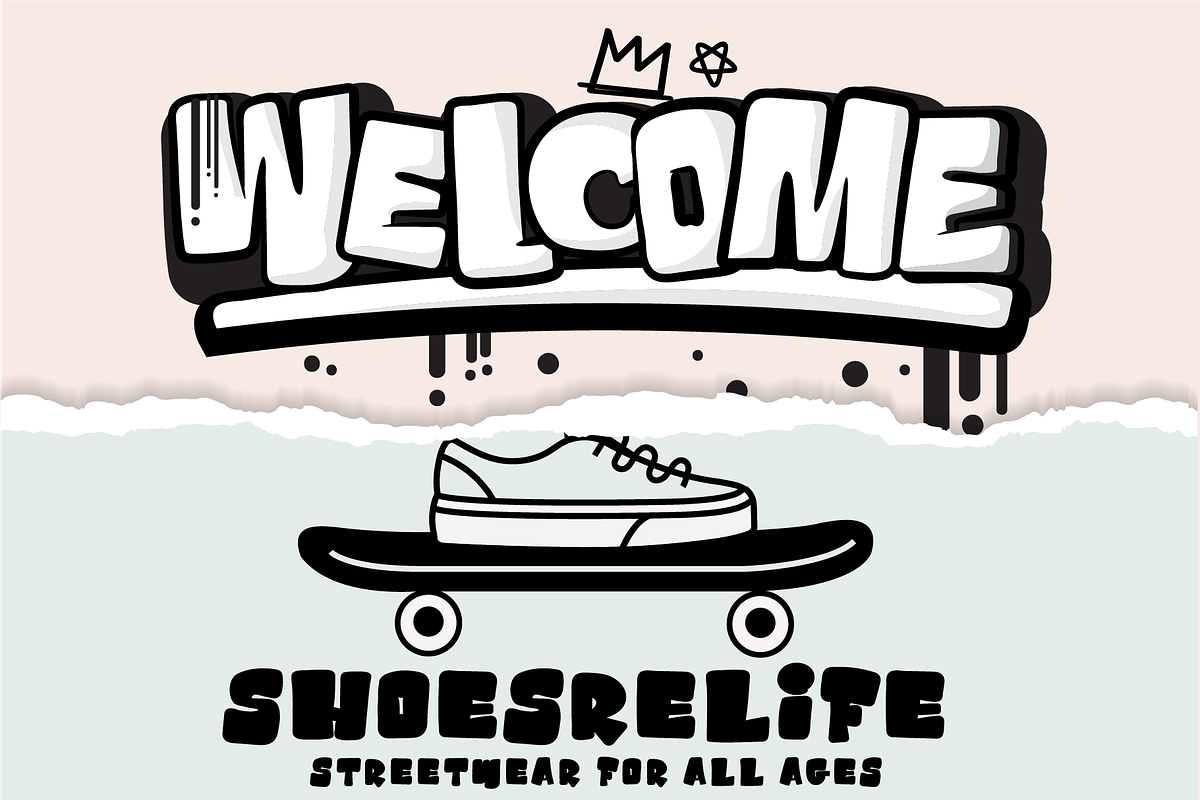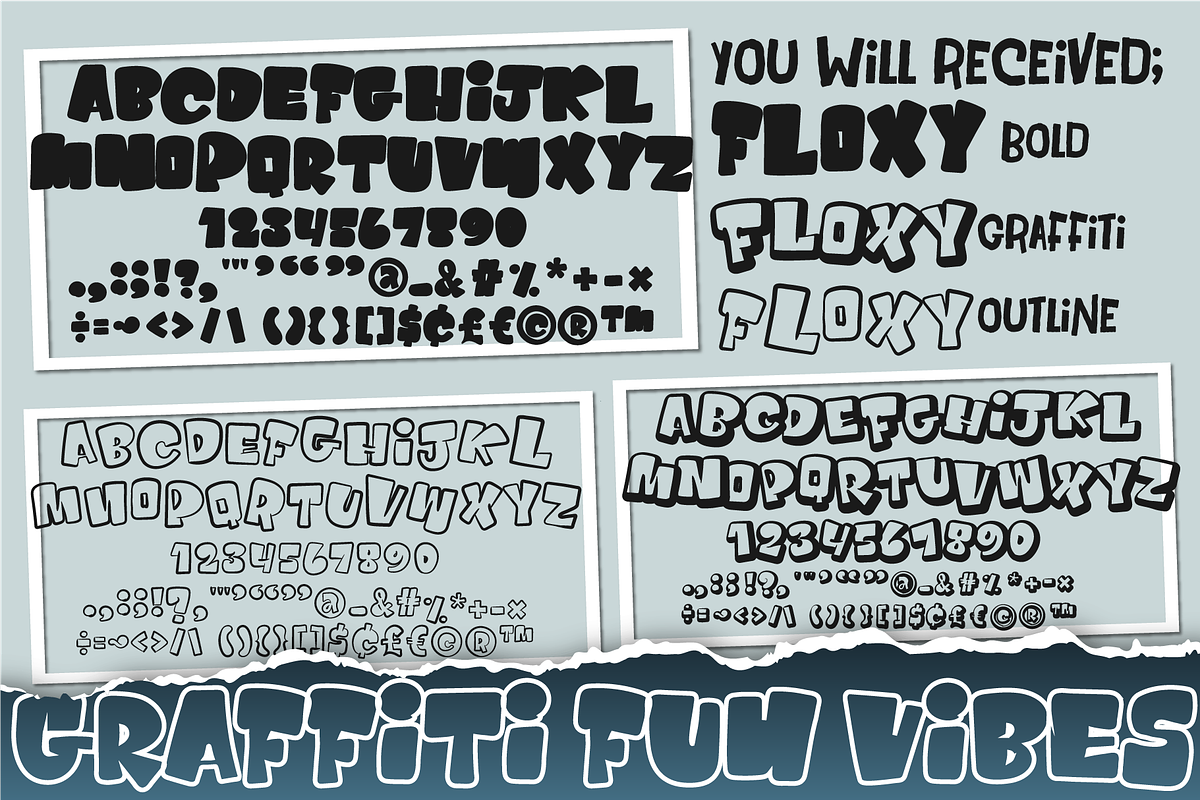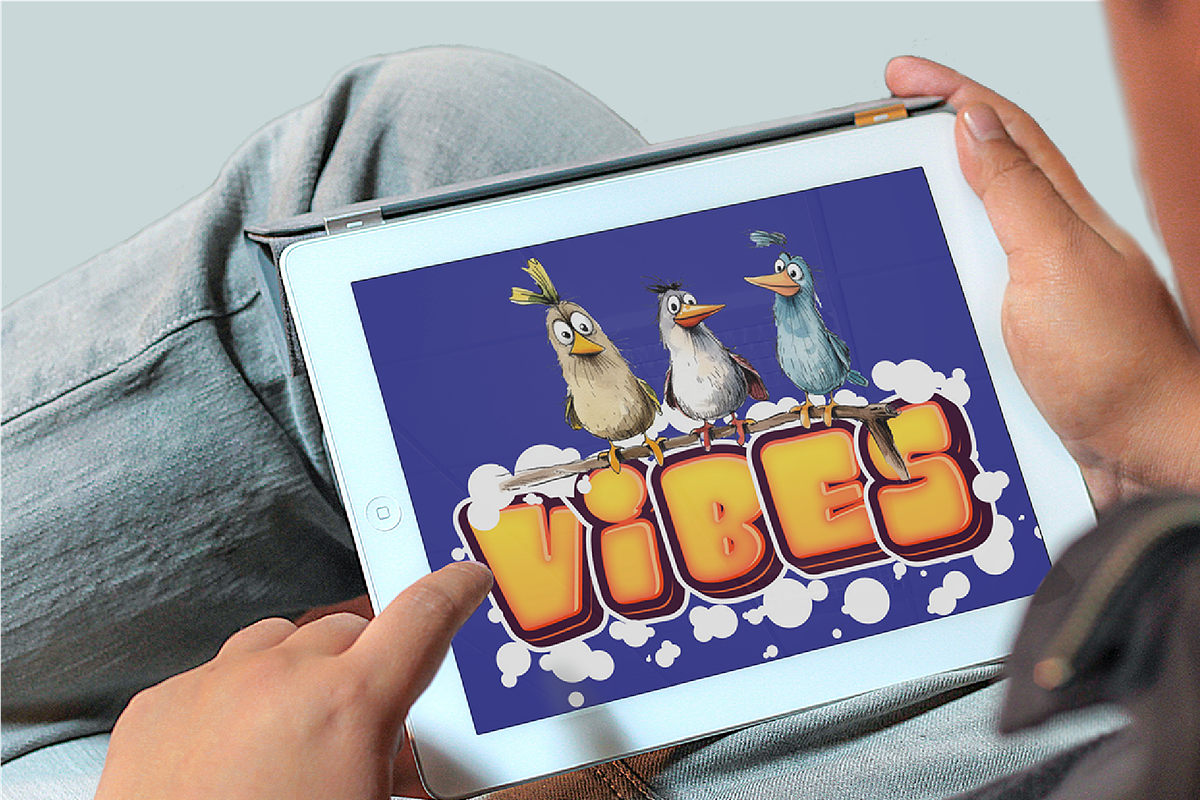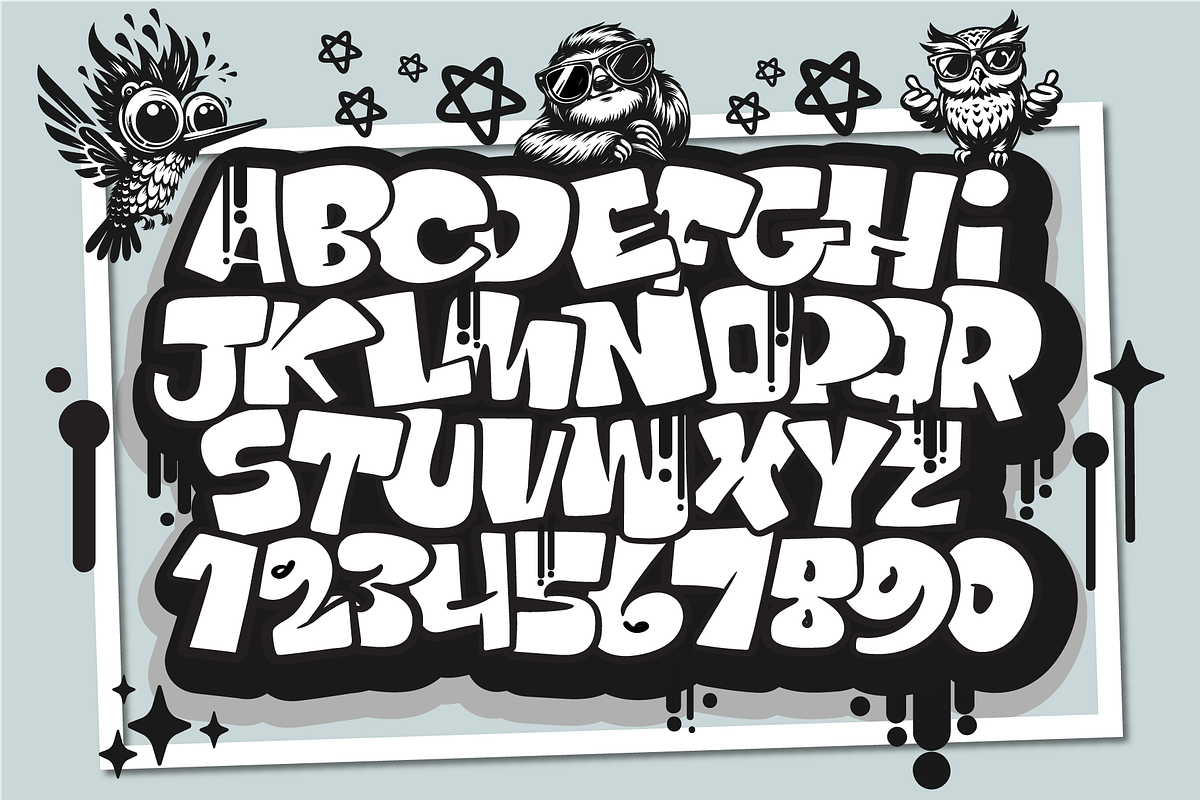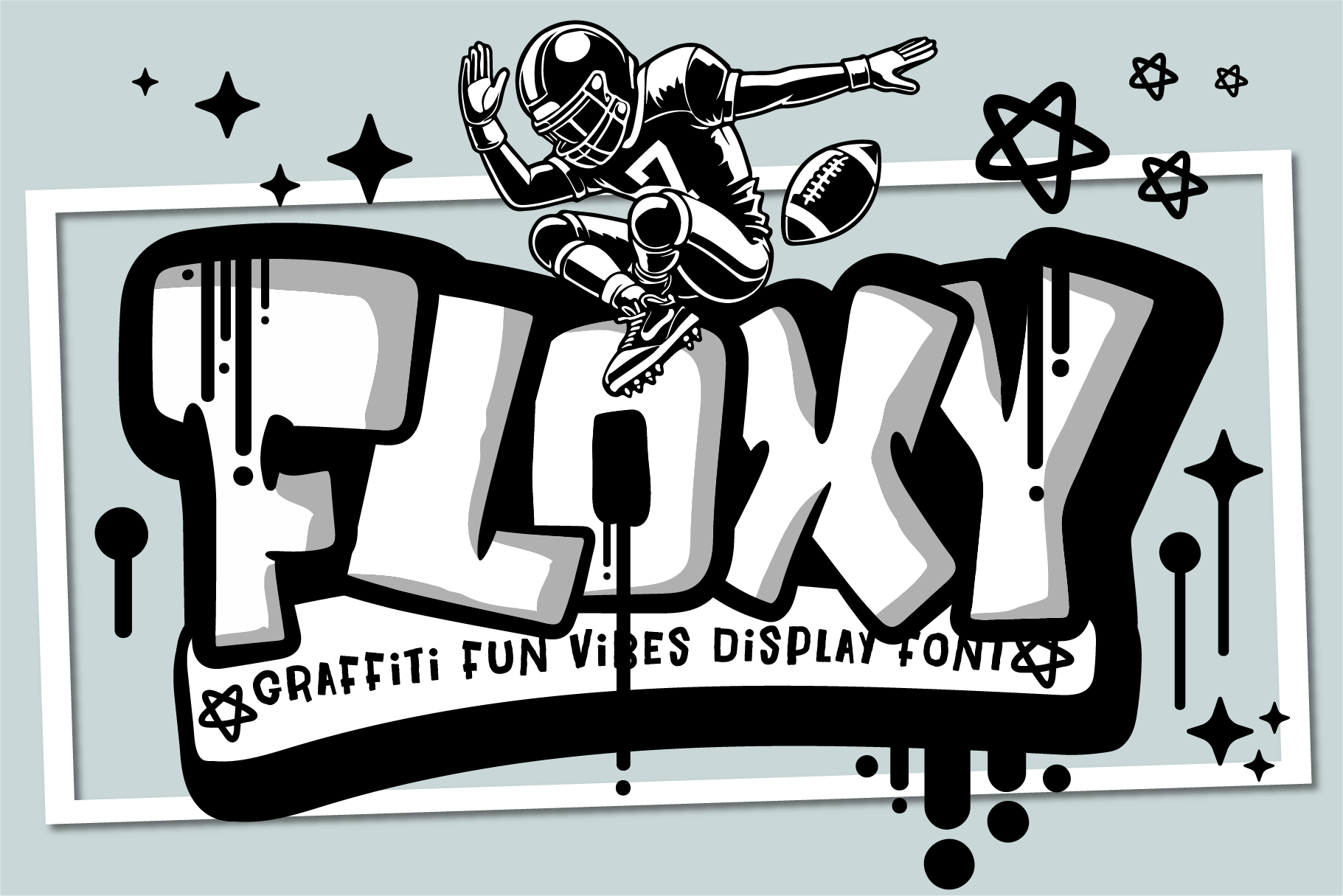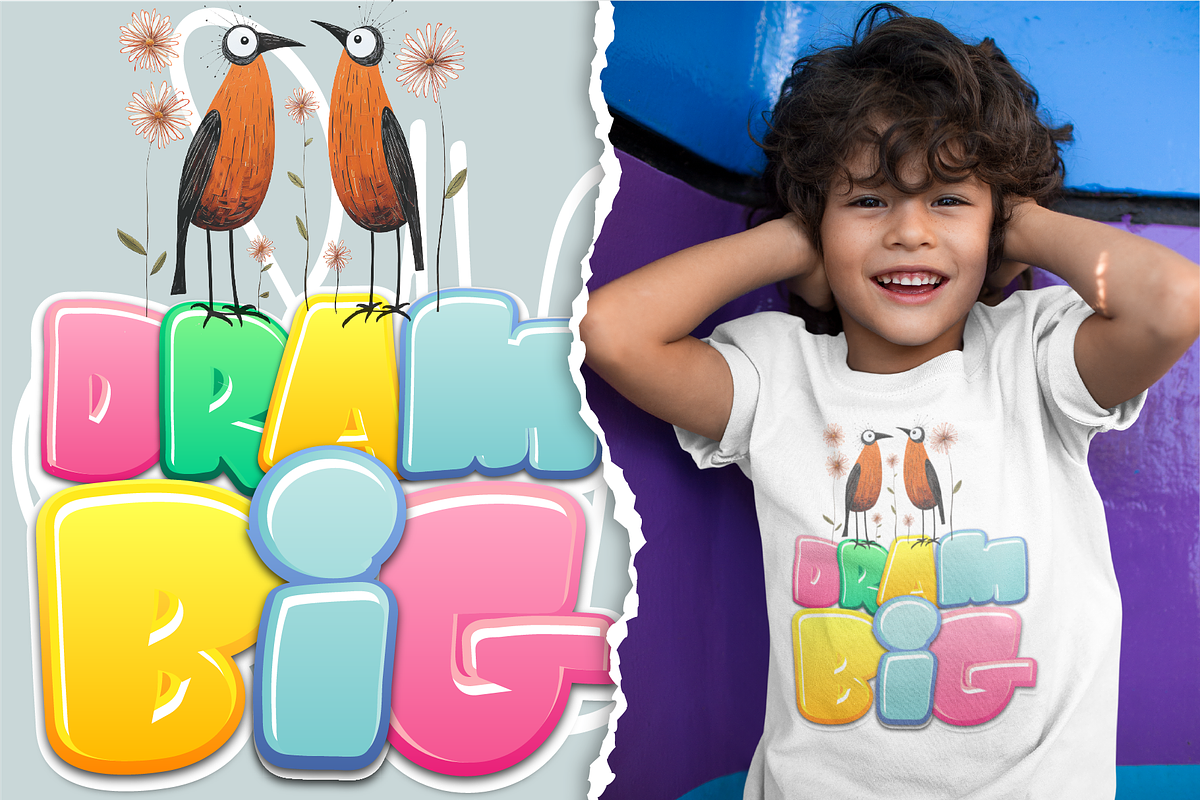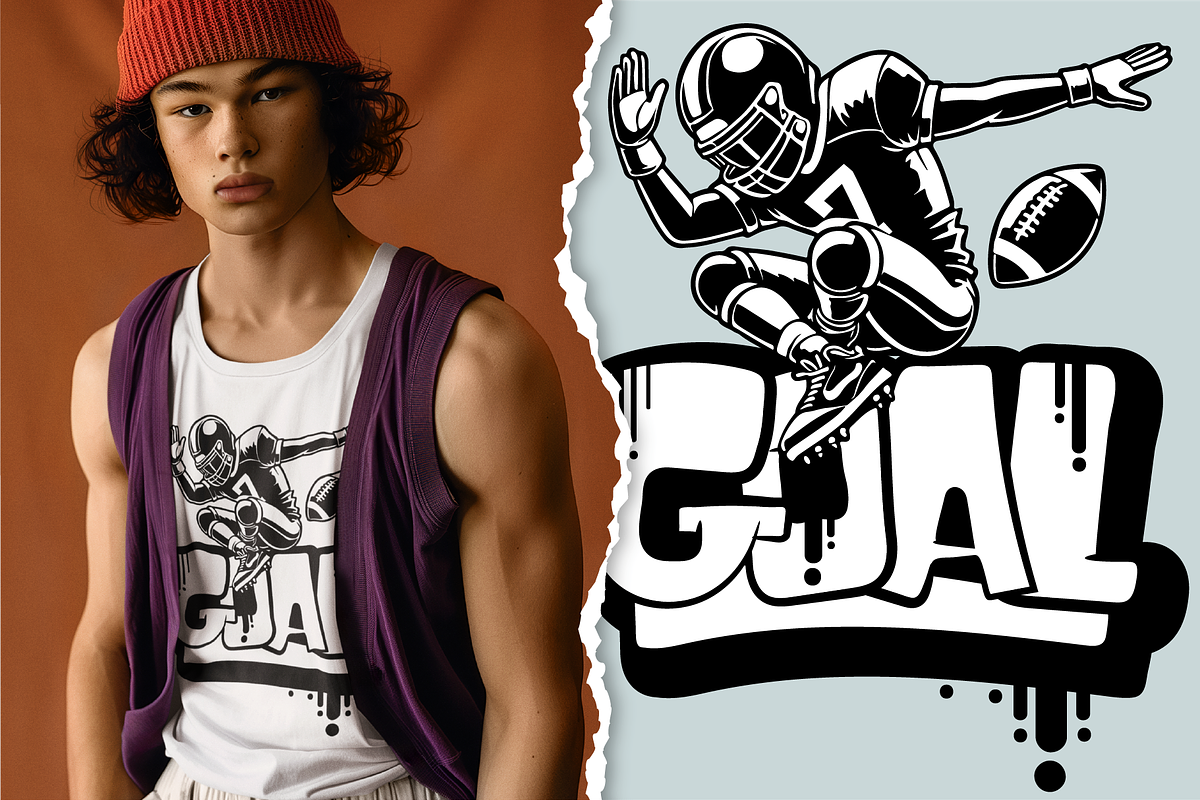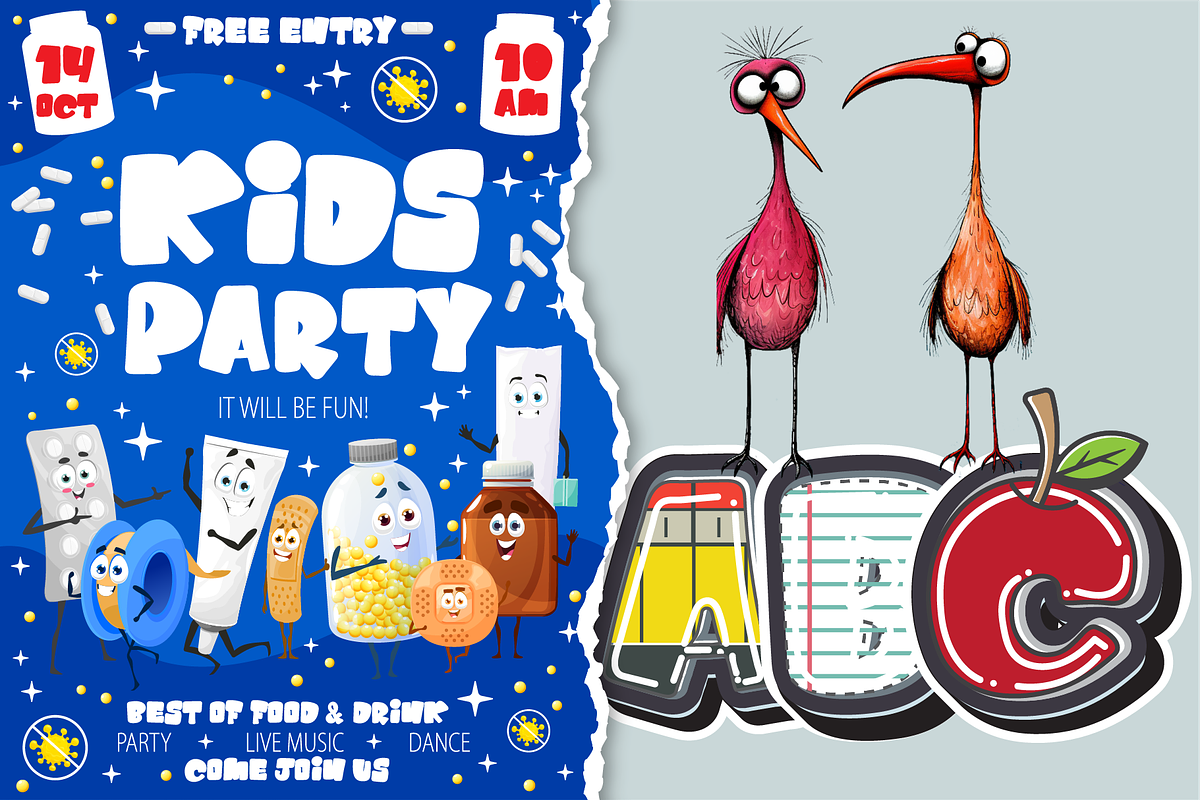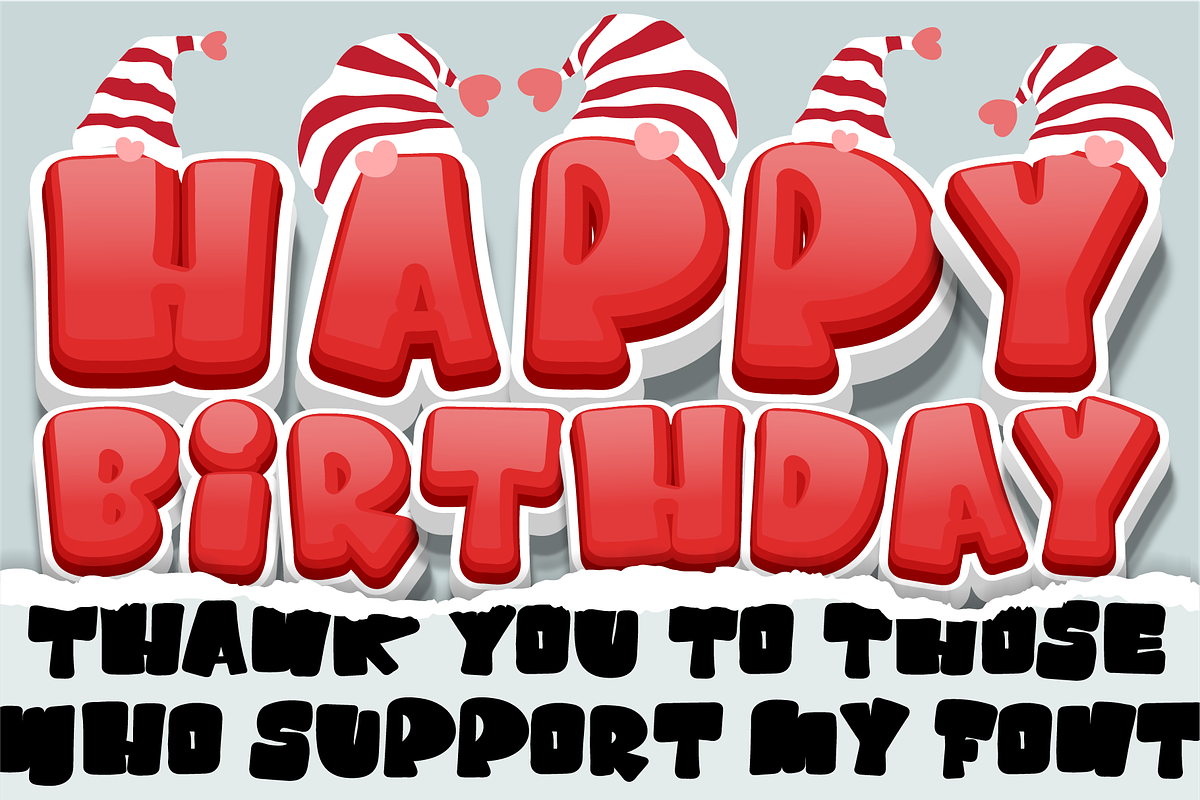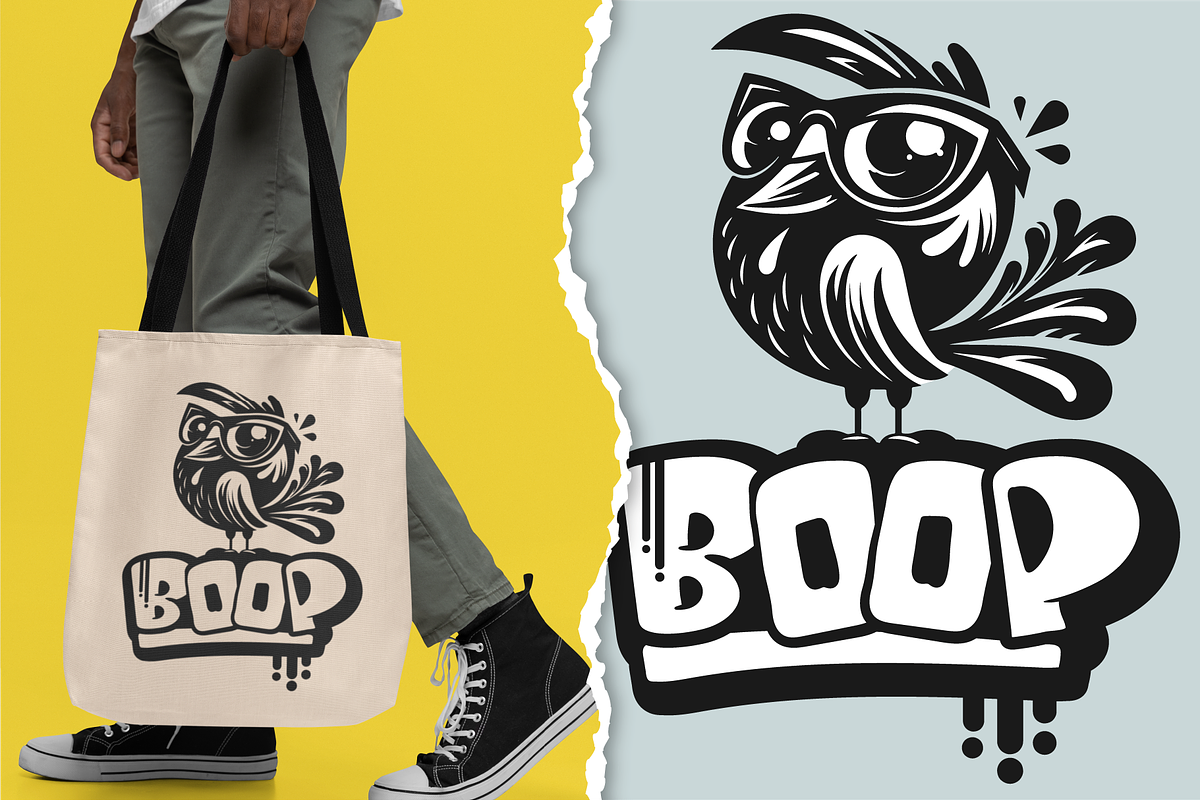
Floxy Font
Floxy is a playful graffiti font bursting with fun and urban vibes. Perfect for young audiences, it brings cool street art energy to any design. Whether you're working on a kid’s project, cartoon-inspired art, or trendy urban graphics, Floxy adds a creative and dynamic edge. With its bold, expressive lines and energetic style, Floxy is ideal for posters, T-shirts, branding, and anything needing a fresh, cool touch. Bring the streets to life with this graffiti-inspired typeface!